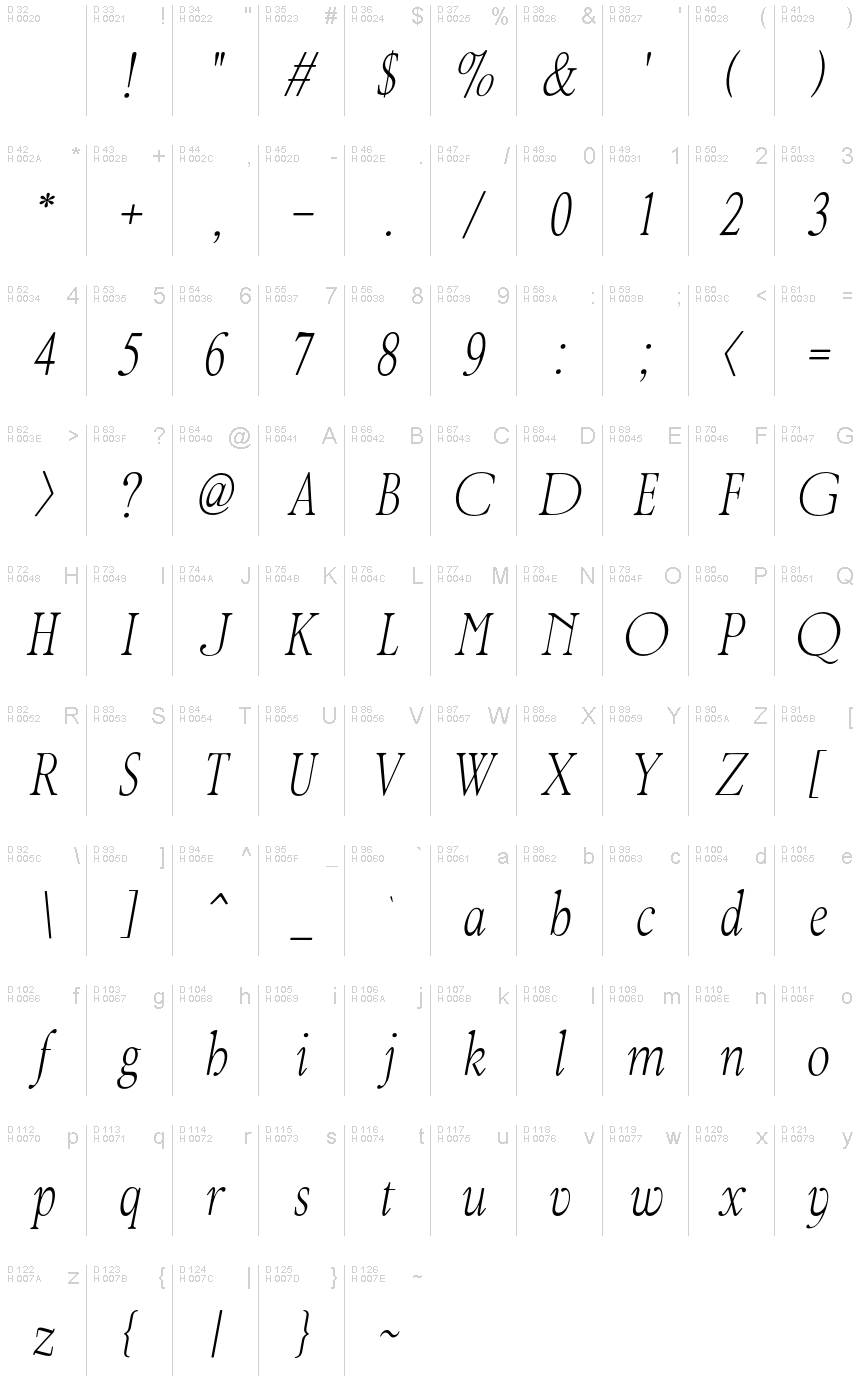
ZT Bros Oskon 90s ExtLt Ita
ZT Bros Oskon 90s font: A trip down memory lane in the world of retro design. It’s a light condensed serif typeface with a strong 90’s feel, which combines old fashioned beauty and modern style. This is not just another typeface; this is ZT Bros Oskon 90s font designed by Zelow Type that guarantees unique typographic experience suitable for diverse applications ranging from retro branding to eye-catching editorial layouts.
Designed by Khairunnas from Zelow Type 2023